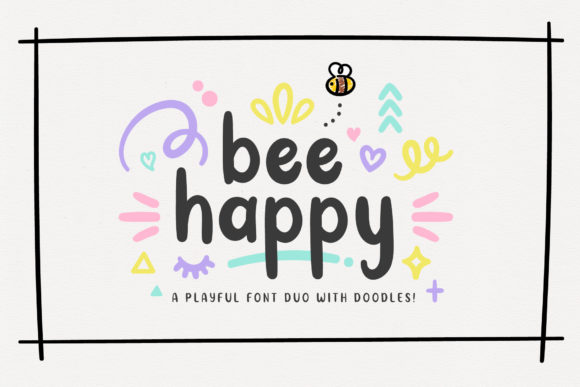
Bee Happy Duo Font: The Ultimate Playful Font for Creative Designs
The Bee Happy Duo Font is a delightful and playful font duo that has taken the design world by storm. This charming font comes in two versions – a regular and a doodle version, allowing designers to create a wide range of fun and creative typography designs. Whether you’re looking to add a touch of whimsy to your quotes, home decor, party invites, blog headers, t-shirts, posters, or any other design and craft project, the Bee Happy Duo Font is the perfect choice.
Key Features of the Bee Happy Duo Font
- Playful and Whimsical Design: The Bee Happy Duo Font boasts a playful and whimsical design that is sure to add a touch of fun to any project.
- Two Font Versions: The font duo comes in two versions – a regular version and a doodle version, providing designers with endless possibilities for creative expression.
- Highly Versatile: The Bee Happy Duo Font is perfect for a wide range of design and craft projects, including quotes, home decor, party invites, blog headers, t-shirts, posters, and more.
Endless Design Possibilities with Bee Happy Duo Font
The Bee Happy Duo Font is an incredibly versatile font that can be used for a wide range of design projects. Here are some ideas to get you started:
- Quotes and Inspirational Sayings: Use the Bee Happy Duo Font to create inspiring and motivational quotes that are sure to brighten up anyone’s day.
- Home Decor: Add a touch of whimsy to your home decor with custom signs, wall art, and other decorative items featuring the Bee Happy Duo Font.
- Party Invites: Create fun and playful party invites that set the tone for a memorable celebration.
- Blog Headers: Use the Bee Happy Duo Font to create eye-catching blog headers that reflect your brand’s personality.
- T-Shirts and Merchandise: Design custom t-shirts, mugs, and other merchandise featuring the Bee Happy Duo Font.
- Posters and Flyers: Create eye-catching posters and flyers that grab attention and communicate your message effectively.
The Benefits of Using the Bee Happy Duo Font
The Bee Happy Duo Font offers a range of benefits that make it an attractive choice for designers. Here are some of the advantages of using this font:
- Unique and Playful Design: The Bee Happy Duo Font features a unique and playful design that sets it apart from other fonts.
- Time-Saving: The font duo comes in two versions, saving designers time and effort in creating multiple design options.
- Easy to Read: The font is easy to read, making it perfect for use in a variety of design projects.
Tips and Tricks for Using the Bee Happy Duo Font
Here are some tips and tricks for getting the most out of the Bee Happy Duo Font:
- Experiment with Different Colors: Try out different color combinations to add depth and interest to your designs.
- Mix and Match Font Versions: Combine the regular and doodle versions of the font to create visually appealing designs.
- Use the Font for Headings and Titles: The Bee Happy Duo Font is perfect for use in headings and titles, adding a touch of whimsy to your designs.
- Don’t Be Afraid to Get Creative: The Bee Happy Duo Font is designed to be fun and playful, so don’t be afraid to experiment and try new things.
The Bee Happy Duo Font is a playful and versatile font duo that is perfect for a wide range of design and craft projects. With its unique and whimsical design, this font is sure to add a touch of fun to any project. Whether you’re a professional designer or a DIY enthusiast, the Bee Happy Duo Font is a great choice for anyone looking to create eye-catching and creative designs.